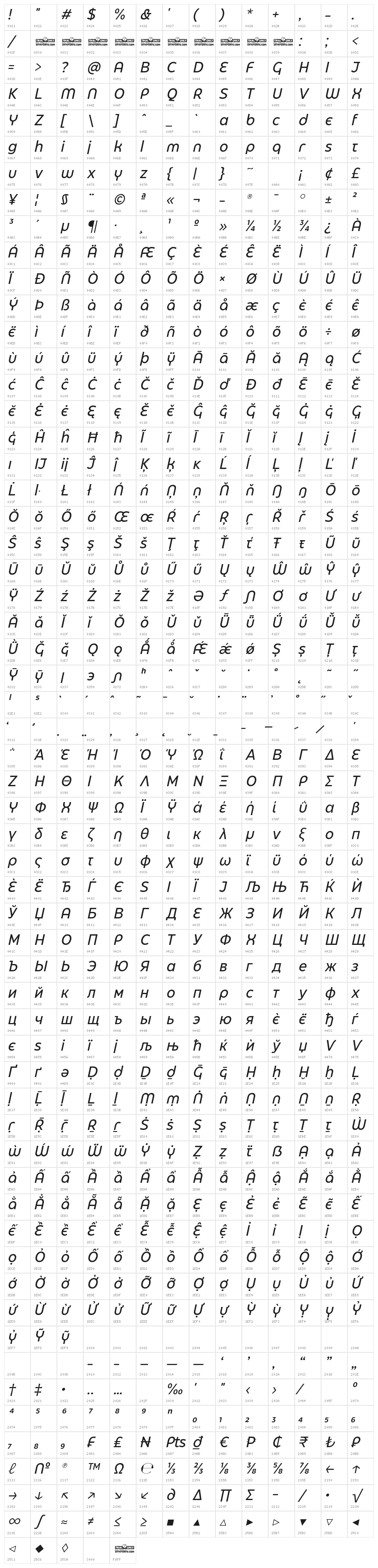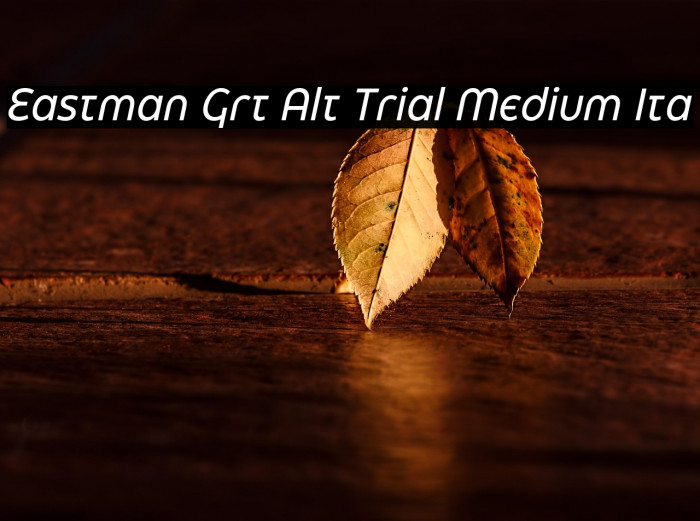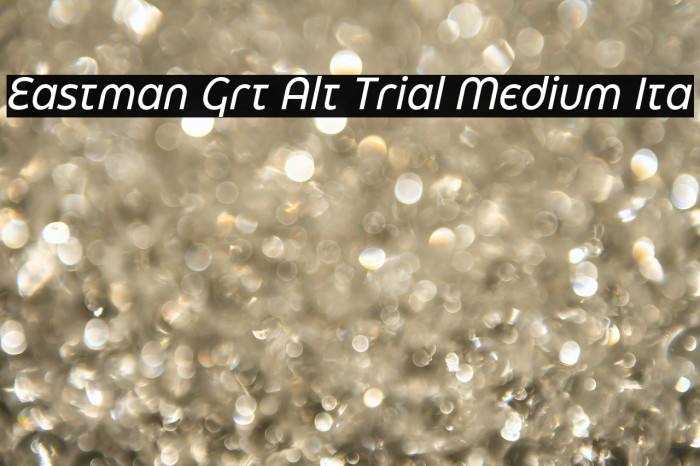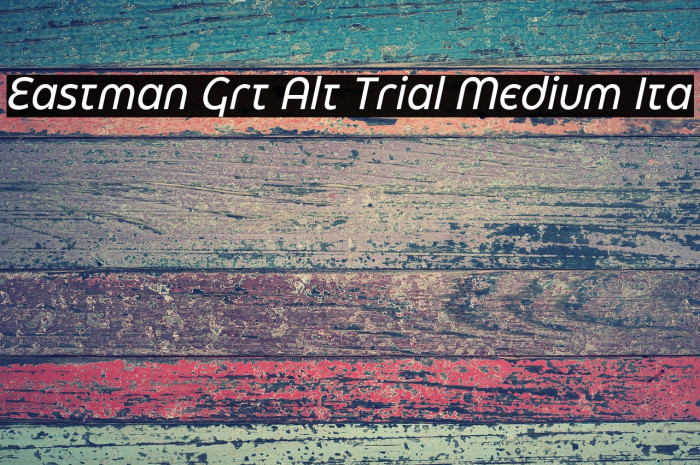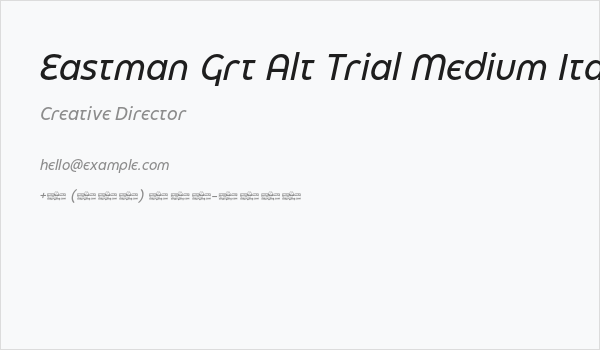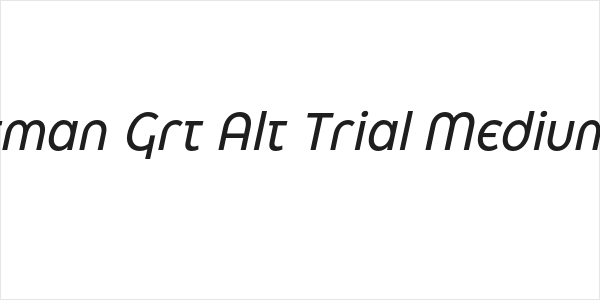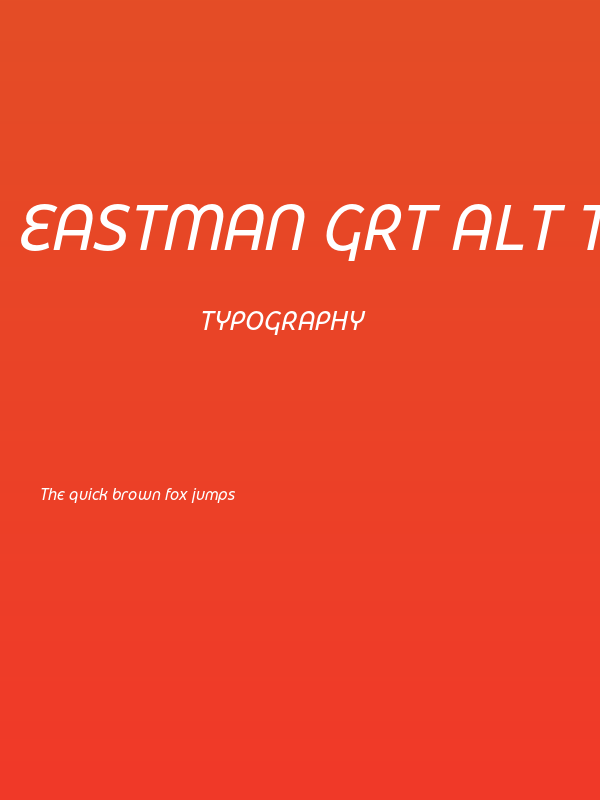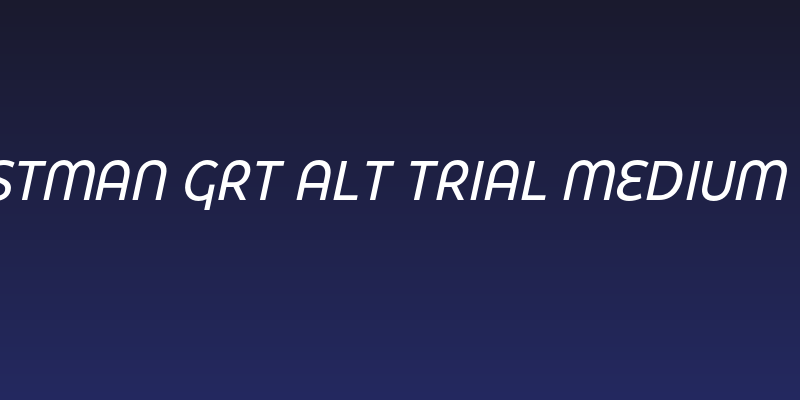
Eastman Grt Alt Trial Medium Ita Font
Eastman Grt Alt Trial Medium Ita Description
This font features a sleek and modern design with a slight italic slant, giving it a dynamic and forward-moving appearance. The characters are clean and well-defined, with a consistent stroke width that provides a uniform look across all letters and numbers. The rounded edges and smooth curves contribute to its contemporary style, making it suitable for a variety of design applications. The font maintains a balanced proportion between height and width, ensuring readability while adding a touch of elegance. Special characters are included, maintaining the same stylistic features as the alphabet, which enhances its versatility.